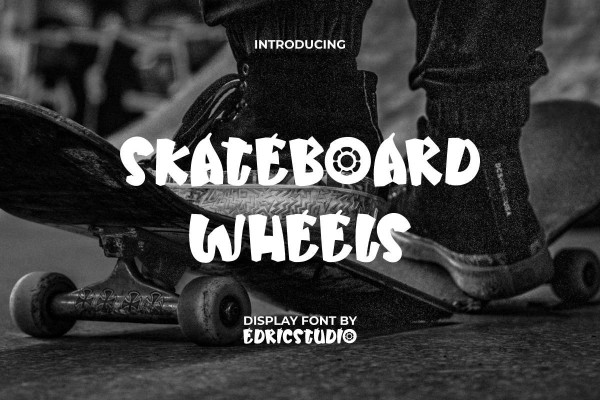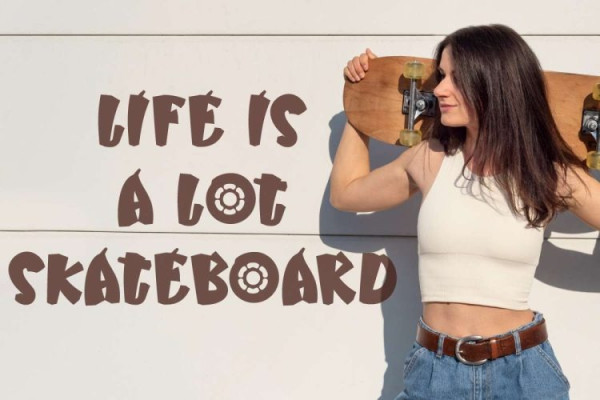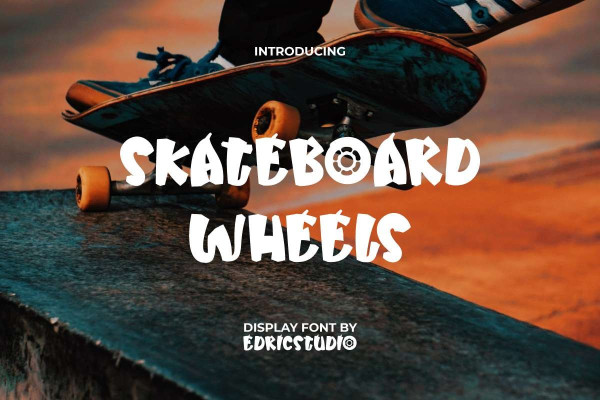
Skateboard Wheels Font
Skateboard Wheels Font is a cool decorative font with skateboarding theme. The font was made by EdricStudio with each character born with a creative and standout shape that will suit any industry, including: accessories, advertisement, clothing brand, event or festival, fashion designer, game, handicraft, homeware, menswear, movie, photography, printing, publishing, sport, and many more.
Skateboard Wheels Font comes with full set of ALL CAPS for both Uppercase and Lowercase Basic Characters, Number, a large range of Punctuation and Symbol. It has a stunning characters set, perfectly managed with well spaced and kerning. Skateboard Wheels Font will be able to complement for any project (with extended license) including: billboard, brand logo, brochure, header, label, packaging design, poster, screen print, stationary, sticker, website, etc.